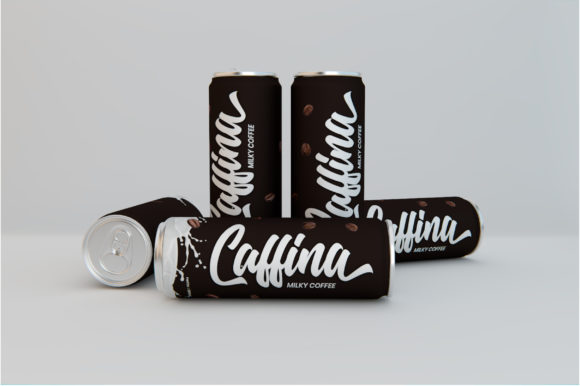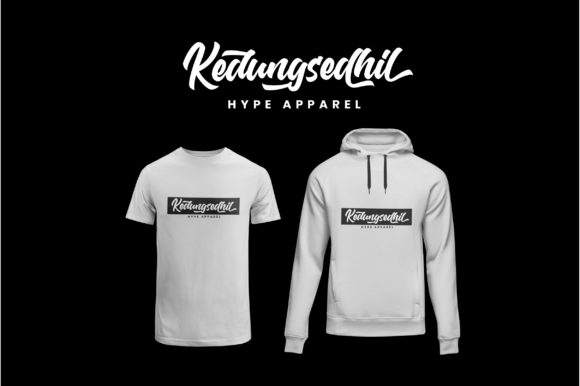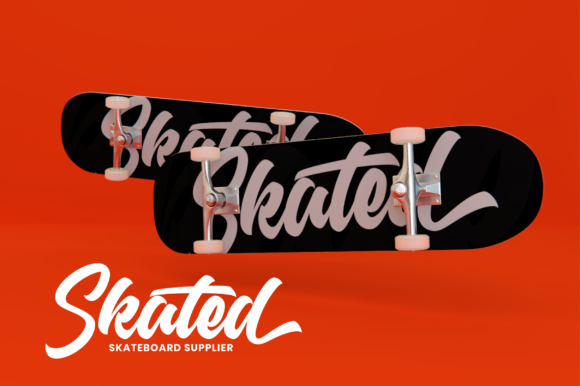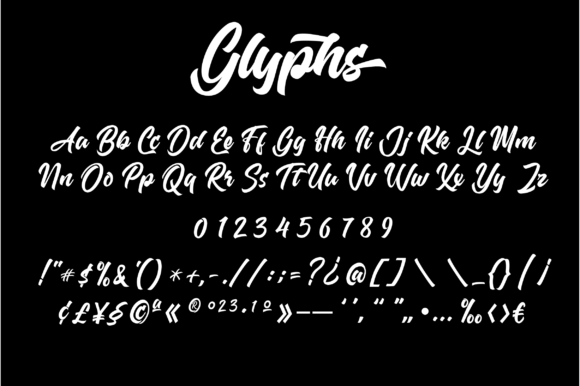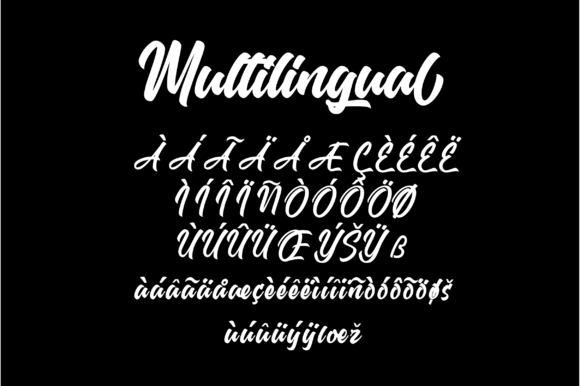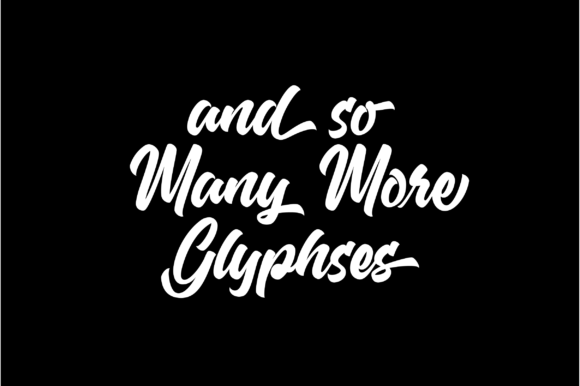
Introduction to Elande Font
Do you ever get that moment when you’re brainstorming ideas for your next crafting project, and you just know that something is missing? That’s when you stumble upon the perfect design resource to elevate your creation. For many of us, that moment came when we discovered the Elande Font.
This gorgeous and friendly display font is the perfect addition to any high-quality design project, offering a unique touch that sets it apart from the rest. With its transparent background, Elande Font is a versatile design tool that can be used in a variety of creative contexts, from digital art to print materials. Whether you’re a seasoned designer or just starting out, this free download is an invaluable asset to have in your toolkit.
Key Features of Elande Font
- High-quality, professional font design suitable for creative projects
- Features a transparent background, allowing for seamless integration with various design elements
- Includes a comprehensive character set, covering a wide range of languages and scripts
- Unique characteristics: elegant, modern design with a touch of sophistication, making it ideal for luxury branding and high-end creative projects
Honest Review: Elande Font
I recently came across the Elande Font, a high-quality design resource that caught my attention. As a designer, I appreciate a well-designed font that can elevate a creative project.
One of the standout features of the Elande Font is its transparent background, which makes it easy to customize and use in various design contexts. The font’s clean and modern design also makes it suitable for a wide range of creative projects.
Here are some of the things that work well with the Elande Font:
- ✨ Suitable for a wide range of design contexts
However, I did notice a few limitations with the Elande Font:
- ⚠️ Limited character set (not ideal for extensive text-based projects)
- ⚠️ Not suitable for very small font sizes
Overall, the Elande Font is a solid addition to any designer’s toolkit. While it has some limitations, its high-quality design and transparent background make it a great resource for creative projects. If you’re looking for a free download, the Elande Font is definitely worth checking out.
Elande Font
The Elande Font is a high-quality design resource perfect for creative projects. Its transparent background makes it easy to integrate into various design applications.
Using Elande Font in Popular Design Applications
Tips for Getting the Most Out of Elande Font
Experiment with different font sizes, colors, and styles to enhance your design. Use it in combination with other design elements for a cohesive look.
The Elande Font is suitable for various creative projects, such as logos, business cards, brochures, and social media graphics.
Compared to Elande Font, Alex Brush has a more refined and sophisticated look, making it suitable for formal events and high-end designs.
Great Vibes is a modern script font that offers a free download option, making it a valuable design resource for designers on a budget. This font features a transparent background and is perfect for creative projects that require a fun and playful vibe.
Compared to Elande Font, Great Vibes has a more casual and relaxed look, making it suitable for social media graphics, blog posts, and other design elements where a lighthearted tone is needed.
3. Carolyna Pro
Carolyna Pro is a high-quality script font that features a transparent background and a wide range of styles, making it a valuable design resource for designers working on creative projects. This font is ideal for branding, packaging, and other design elements where a touch of sophistication is needed.
Yes, Elande Font features a transparent background, making it ideal for creative projects that require a high level of design flexibility. This feature allows you to easily combine the font with other design elements and achieve a seamless look.